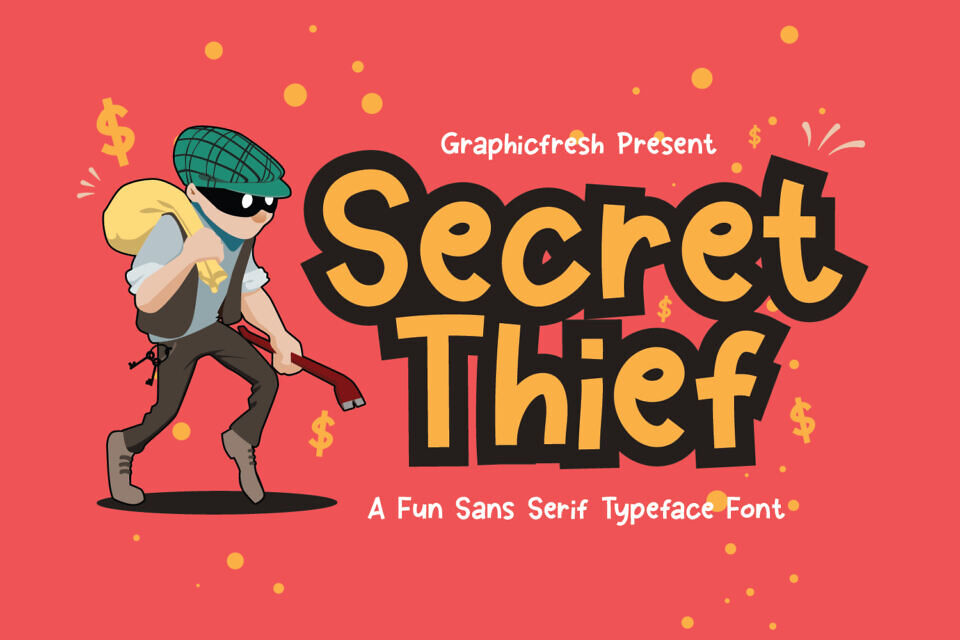
Secret Thief Font
Secret Thief is a cute Sans Font designed by Graphicfresh. This funny font is formed from a unique style of letters. Hope you like it. it’s perfect for logos, name card, magazine layouts, invitations, headers, or even large-scale artwork.